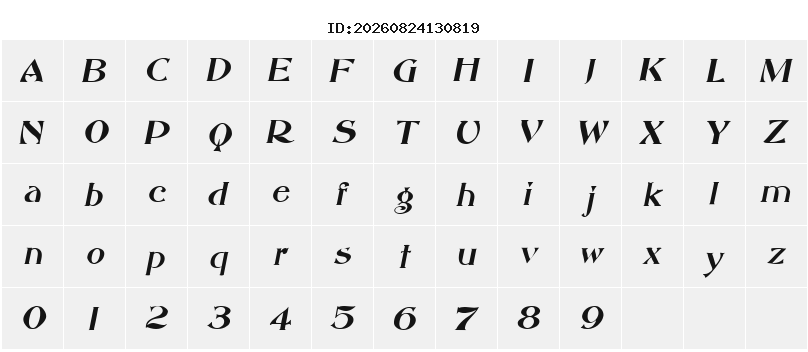
• Font Name: Saccule
• Font Style: Oblique
• Full Font Name: Saccule Oblique
About Saccule.ttf
Saccule.ttf is a modern, elegant sans-serif font designed for ultimate readability and visual harmony. Perfect for branding, headlines, web design, and print materials.